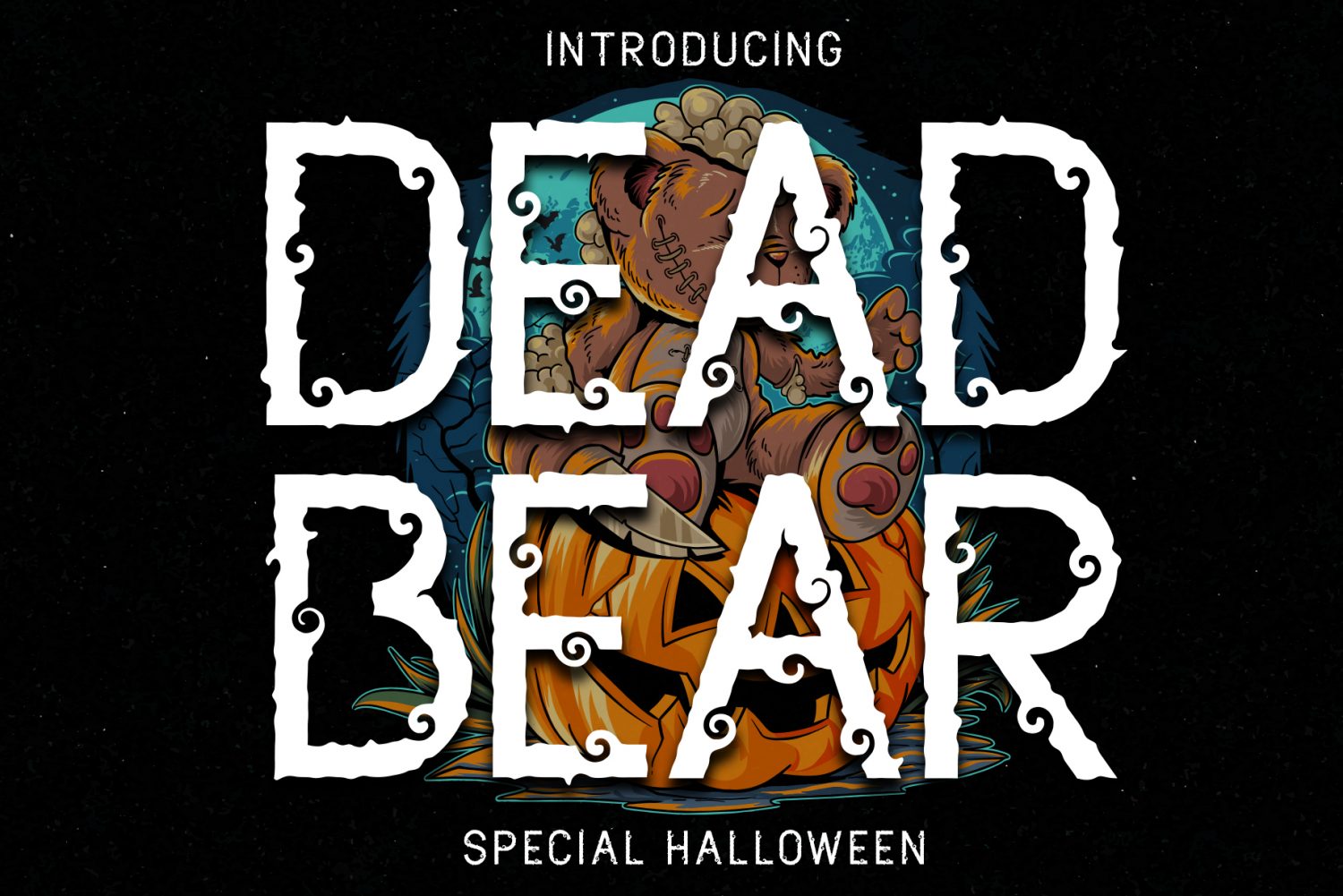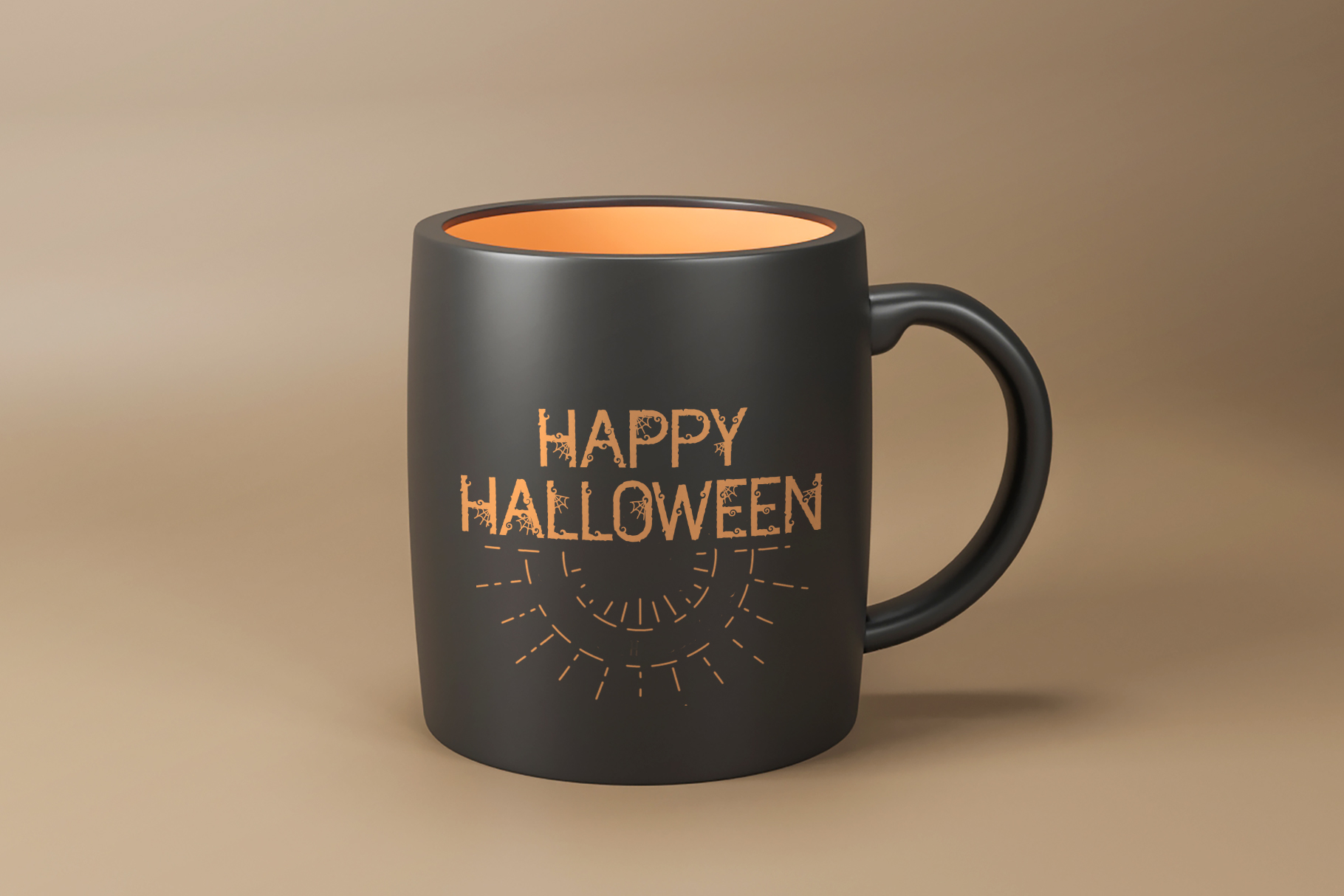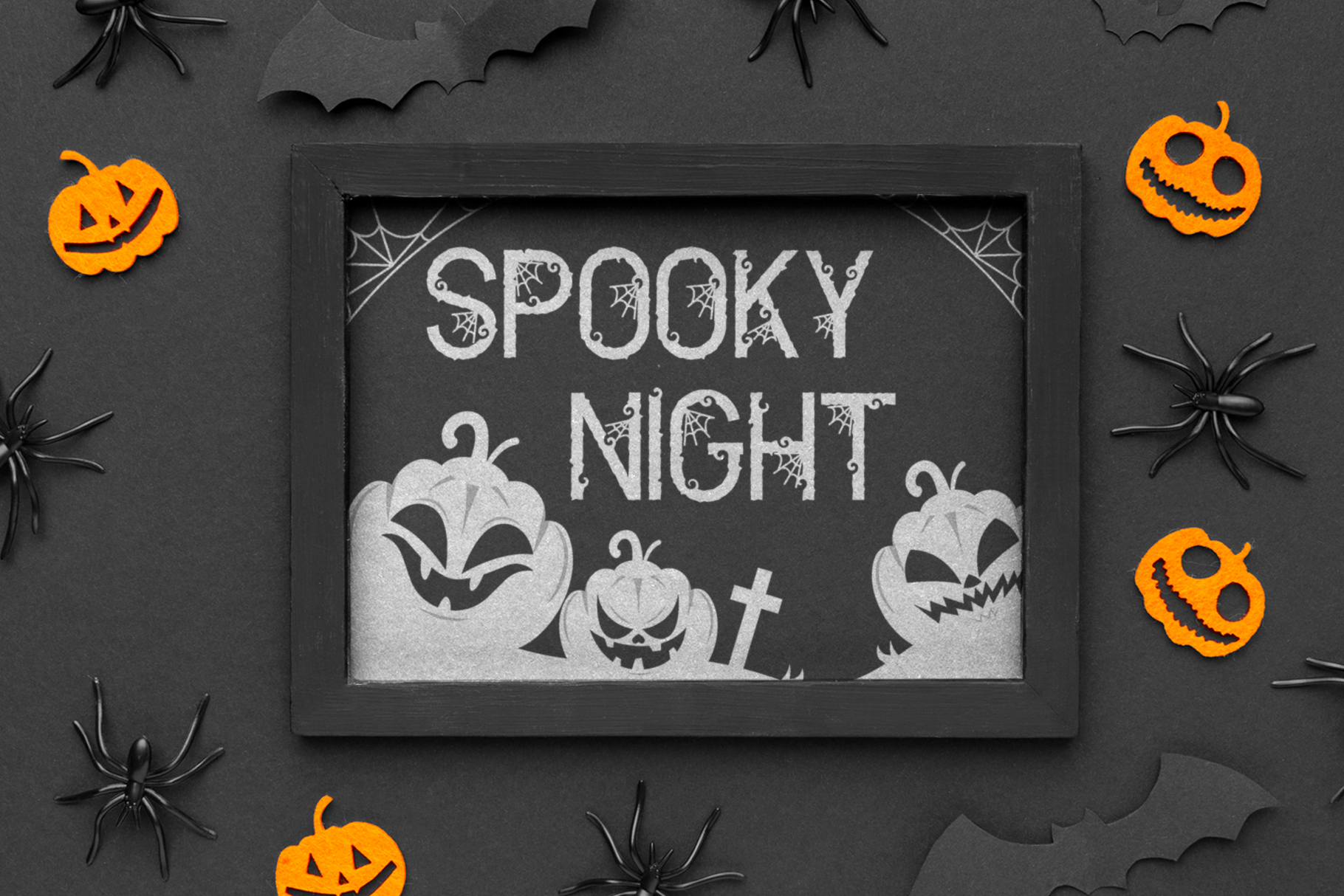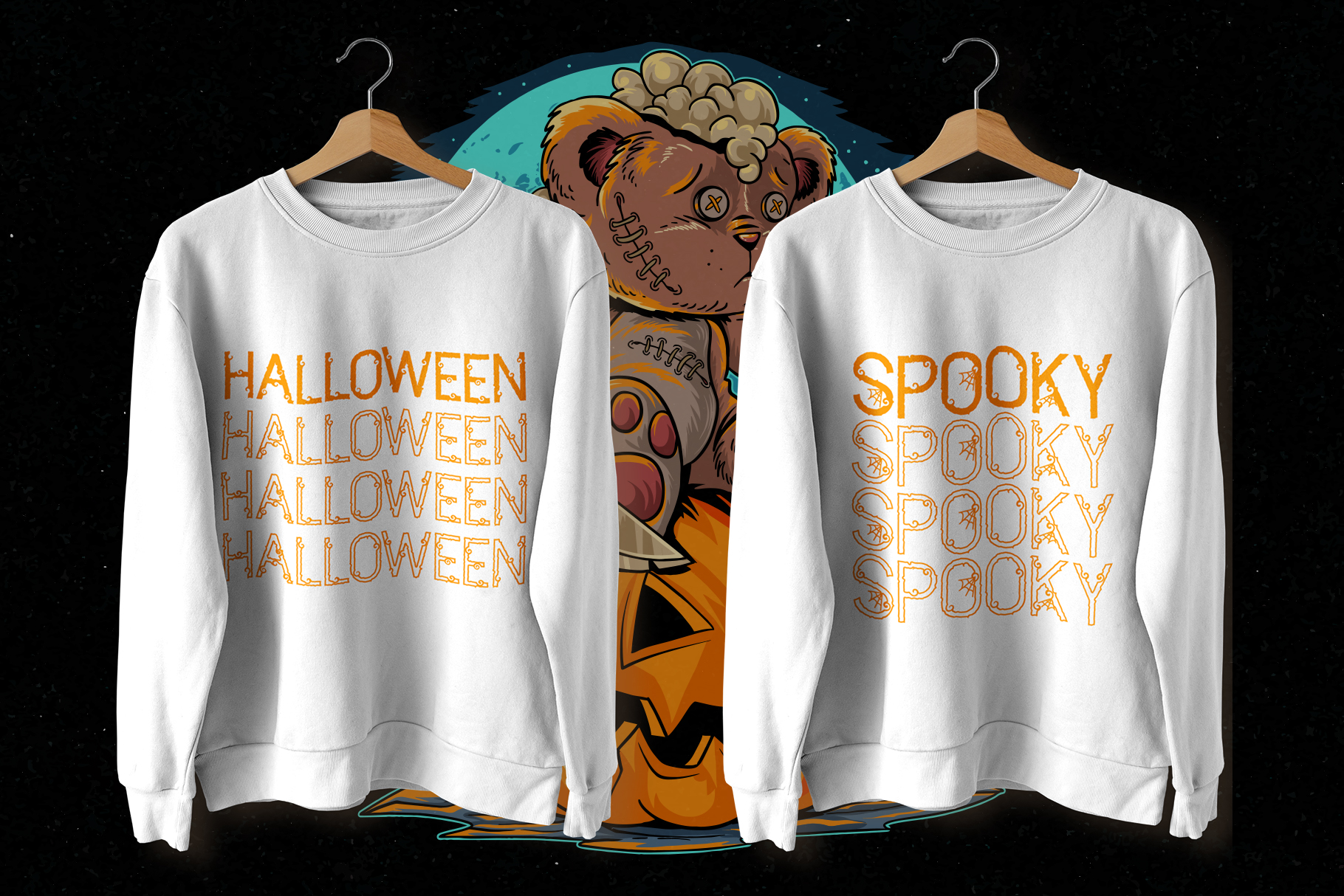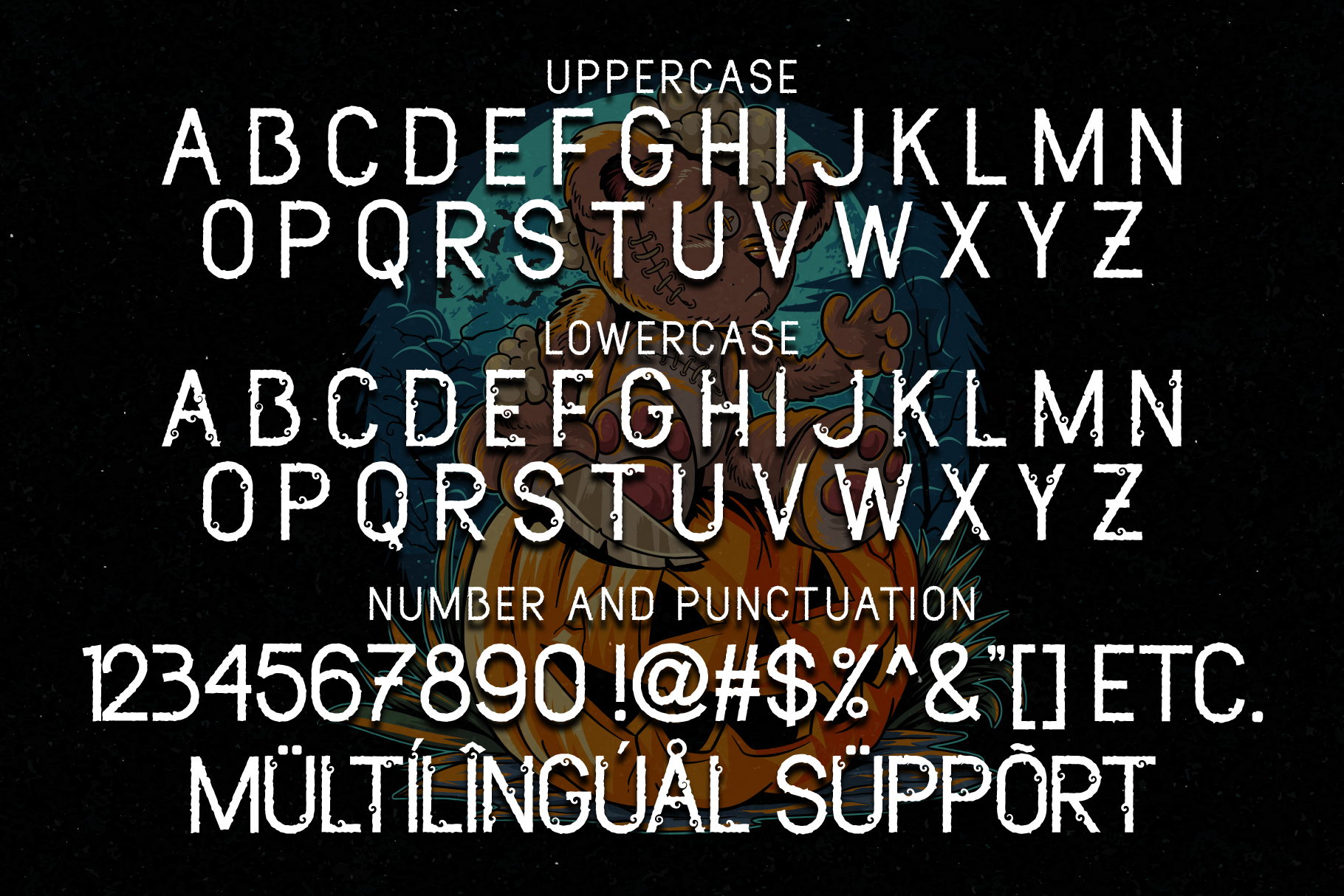
Dead Bear Free Font
Meet Dead Bear Free Font, a chilling and stylish display font that adds a creepy touch to your designs. With its imposing and uniquely shaped letters, this font seamlessly complements a diverse array of creations seeking a distinctive and edgy vibe. This free typeface was designed by a talentedΒ Alif Ryan Zulfikar. If you like it don’t forget to check out the full version.